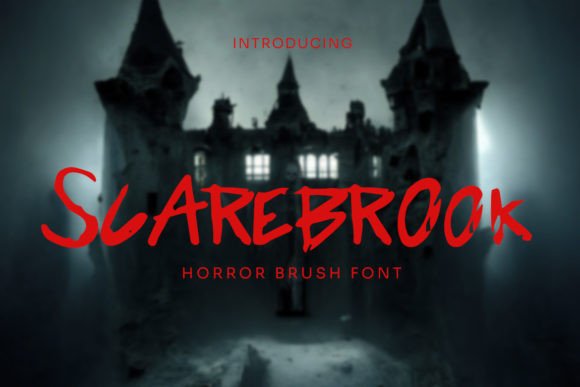
Unleash the dark charm and haunting beauty of your creative visions with Scarebrook, a horror and commanding brush font that will cast a sinister spell on your designs. Its bold, sharp edges and thick strokes evoke a sense of menace and power, while its distressed texture creates an eerie and atmospheric aura.
Step into the shadows and let Scarebrook guide your designs to dark and dramatic heights. Whether you're crafting intense titles, haunting headlines, or mysterious logos, this font will add a touch of wicked elegance to your projects. Its PUA encoding ensures effortless access to all glyphs and swashes, making it a versatile tool for unleashing your creative potential.
Imagine the impact of Scarebrook on your posters, flyers, album covers, and social media graphics. Its twisted charm will capture attention and leave a lasting impression, making your designs stand out from the ordinary. Unleash the power of Scarebrook and let your creativity take a thrilling ride into the unknown.
For those seeking a font that embodies the essence of horror and intrigue, Scarebrook is the perfect choice. Its menacing strokes and haunting texture will add a touch of darkness and mystery to your projects, leaving your audience captivated and spellbound.
Embrace the sinister beauty of Scarebrook and let your imagination run wild. Explore the depths of your creativity and create designs that evoke fear, intrigue, and awe. With Scarebrook as your weapon, the possibilities are endless. Dare to venture into the unknown and unleash the power of darkness.